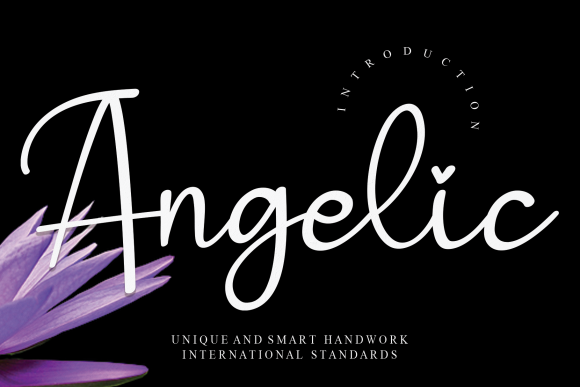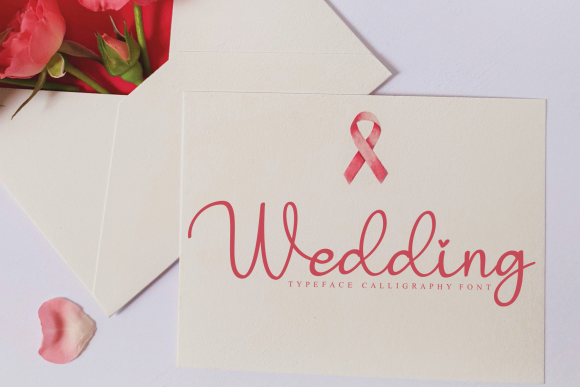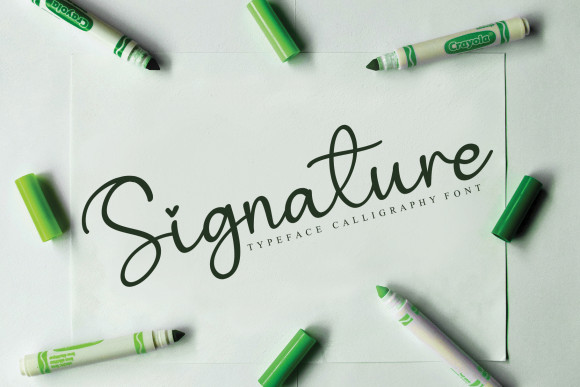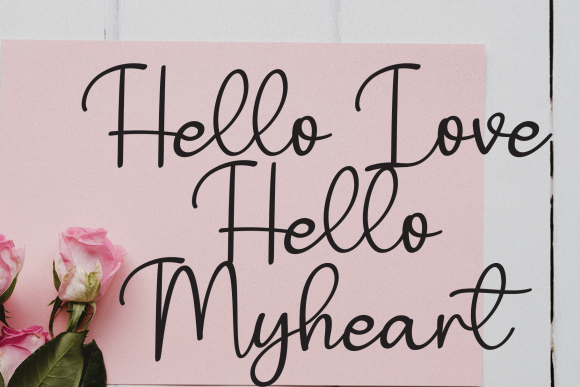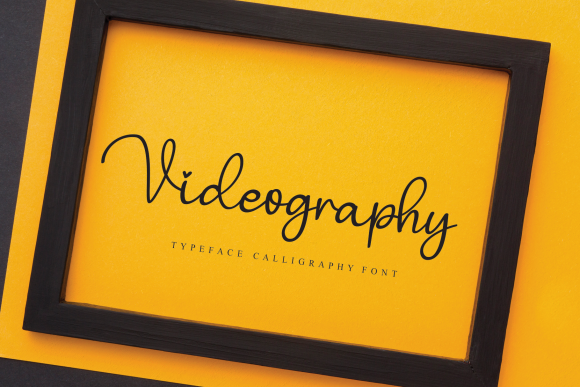
Angelic Font
About Angelic Font
Angelic is a well balanced and delicate handwritten font. It is defined by beautiful curves and is perfect for fashion branding or editorial designs. Add it confidently to your projects, and you will love the results.